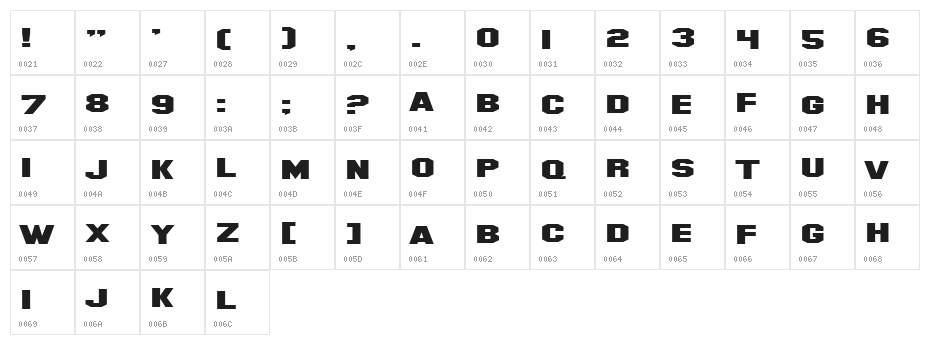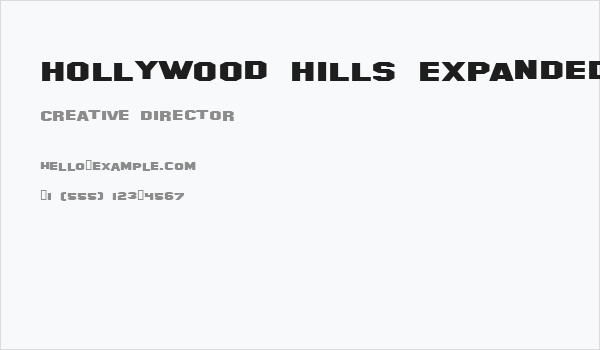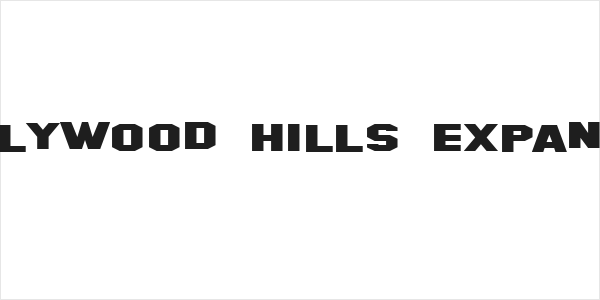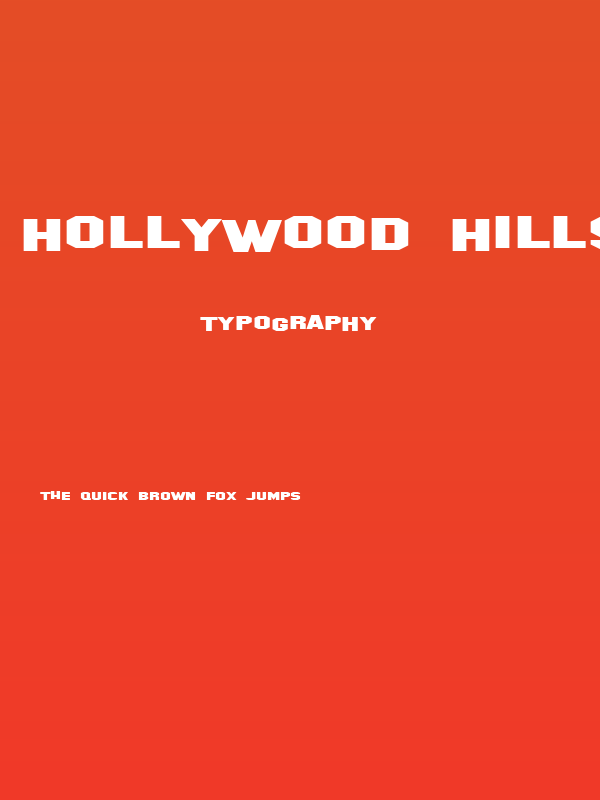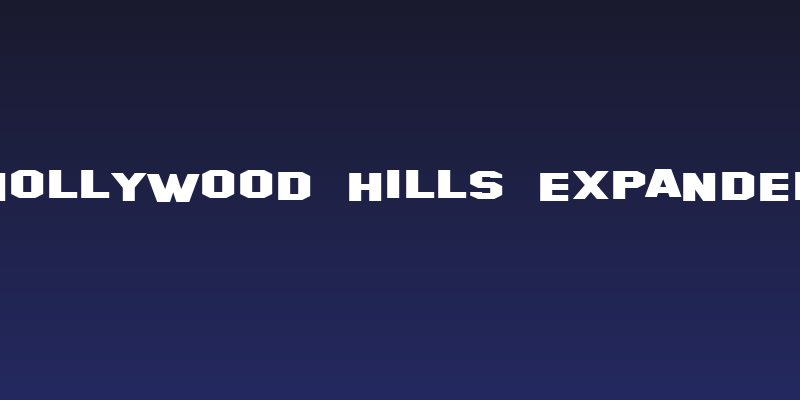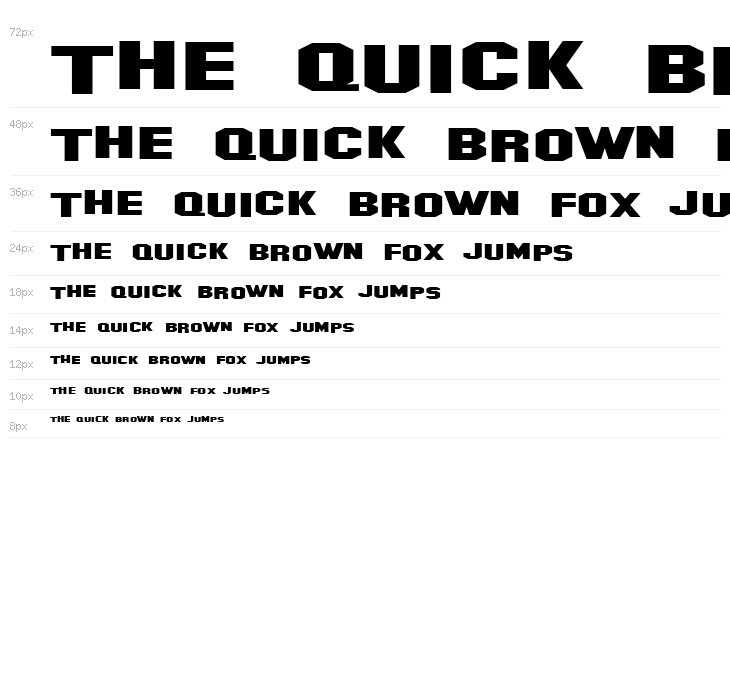
Hollywood Hills Expanded Font
Hollywood Hills Expanded Description
This typeface features a bold and striking design, characterized by its thick, blocky letters with sharp angles and a geometric structure. The uppercase and lowercase letters maintain a consistent width, creating a uniform appearance. The numbers and special characters follow the same bold style, ensuring cohesion across all elements. The font's expanded width gives it a commanding presence, making it ideal for attention-grabbing headlines and titles. Its strong visual impact is enhanced by the high contrast between the thick strokes and the negative space, lending a modern and assertive feel to any design.
| Proposed Projects | Ideal for branding, posters, signage, and any project requiring a bold, modern aesthetic. |